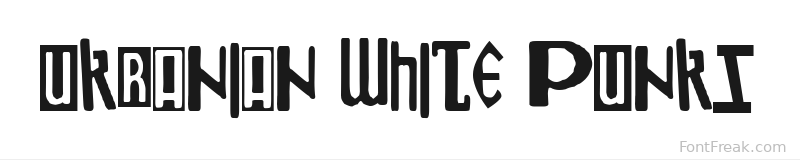
Ukranian White Punks
About Ukranian White Punks
Ukranian White Punks is a striking display font designed by woodcutter Manero, embodying a unique blend of cultural influence and modern aesthetics. This freeware font falls within the category of decorative typefaces, making it an excellent choice for projects that require a distinct visual impact. Characterized by its bold, irregular strokes and playful forms, it captures attention while retaining a sense of artistic flair. The contrast between thick and thin elements enhances its visual appeal, while the unconventional spacing contributes to a sense of dynamism and creativity.
The visual characteristics of Ukranian White Punks are both engaging and versatile. The font features an eclectic mix of angular and rounded shapes that evoke a sense of whimsy, making it suitable for various applications. It works particularly well on posters for music festivals, urban art exhibitions, or fashion shows, where a contemporary yet edgy look is desired. Additionally, it can add a unique touch to branding materials for small businesses, especially those in the creative sector, such as cafes or boutiques. Wedding invitations that aim for a modern and unconventional aesthetic can also benefit from this font's distinctive personality.
Targeting graphic designers, small business owners, and content creators, Ukranian White Punks is an ideal choice for anyone looking to make a statement. Its free availability ensures accessibility, allowing users to experiment and incorporate it into their designs without financial constraints. The Ukranian White Punks font free download offers an opportunity to explore creative possibilities while ensuring that your project stands out in a crowded visual landscape. This font not only adds a layer of sophistication but also reflects a bold artistic vision that is sure to resonate with audiences.